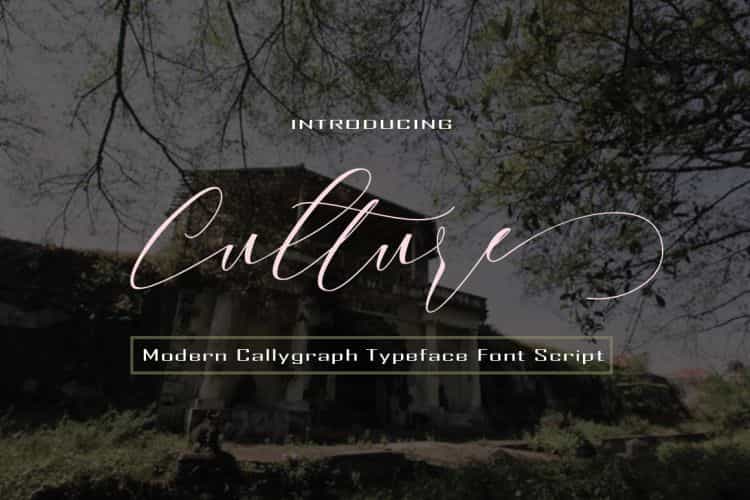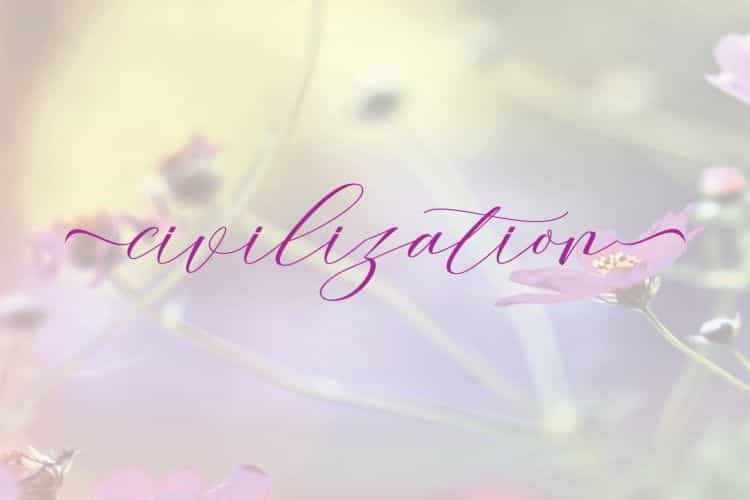
Discover Culture Script Font, part of the Calligraphy collection—a versatile and unique font perfect for adding a personal touch to your projects. Download it for free and enjoy crafting designs with style, from invitations to social media posts. This font is available exclusively for personal use, giving you the freedom to create without limits. Unlock your creativity with Culture Script Font today!
Culture Font! Thank you very much for checking out the Culture Font. Culture Font natural handwriting modern calligraphy – culture designed and shared by the AlfarabyStudio creative typefaces. Culture is a script font that has a variety base line, fine lines, and a classy touch with professional looks. This typeface can be utilized for various purposes like T-shirt design, chevron design, packaging, modern branding, poster, digital marketing, Instagram posts, and much more.